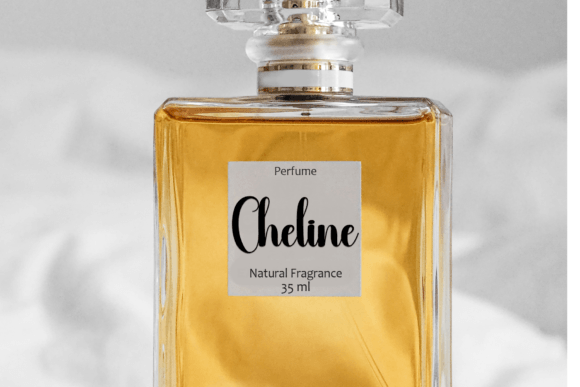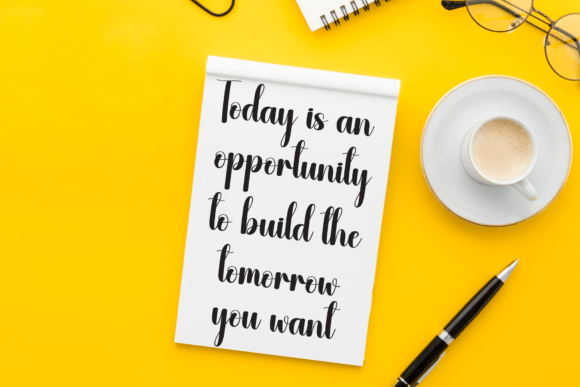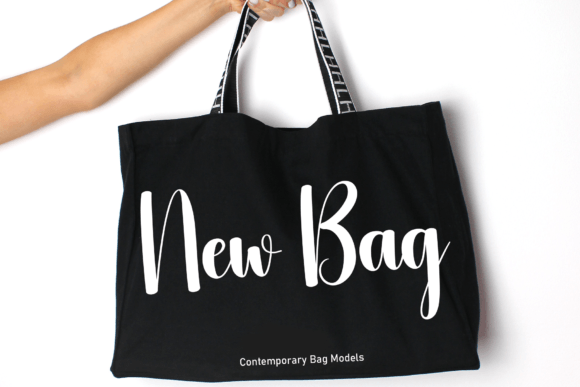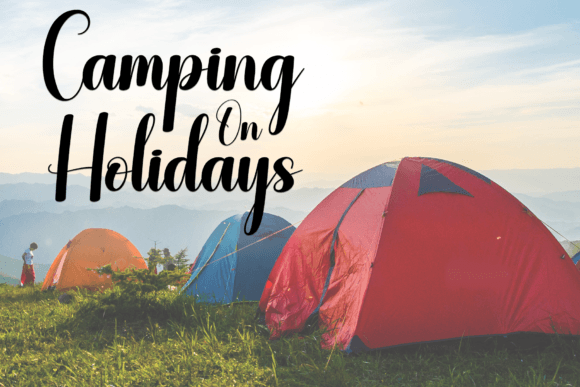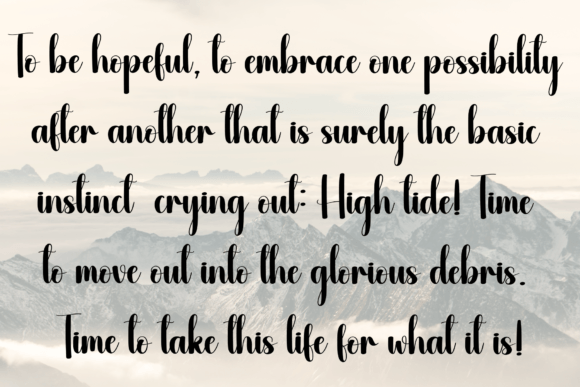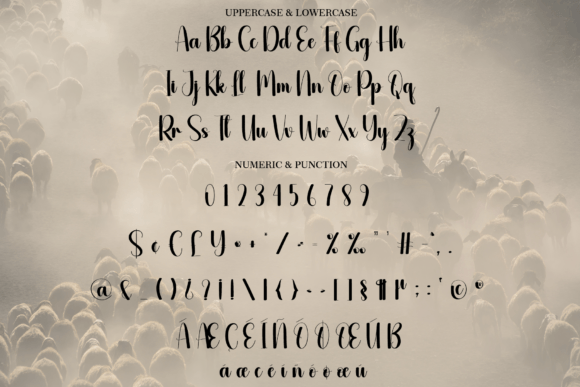
The Sweet Charm of Dusty Font: A Designer’s Delight
I still remember the time I was working on a wedding invitation project, and I just couldn’t find the right font to capture the warmth and elegance of the occasion. My client wanted something fresh, casual, and lovely – a font that would make their special day feel like a celebration. That’s when I stumbled upon Dusty Font, a sweet and friendly handwritten font that instantly won my heart. In this article, I’ll share my experience with Dusty Font, its features, and how to make the most of it in your designs.
An Honest Review of Dusty Font
What I Love About Dusty Font
- ✨ Sweet and Friendly Vibe: Dusty Font exudes a warm, inviting feel that’s perfect for wedding invitations, cards, and other designs that require a personal touch.
- ✅ Fresh and Casual: This font is ideal for creating a relaxed, effortless look that’s perfect for modern designs.
- 💕 Highly Readable: Dusty Font is clear and easy to read, making it suitable for both digital and print designs.
While Dusty Font is an excellent choice for many designs, there are a few things to keep in mind:
- ⚠️ Limited Formality: Dusty Font is a casual font, so it might not be the best choice for very formal or corporate designs.
- 🤔 Glyph Limitations: While Dusty Font has a range of glyphs and alternates, it might not have every special character or symbol you need.
The Story Behind Dusty Font
Dusty Font was created with the intention of capturing the warmth and charm of handwritten text. The designer aimed to create a font that would feel like a handwritten letter or a personal note – a font that would make the reader feel special and appreciated. With its sweet and friendly vibe, Dusty Font has become a popular choice for designers and crafters looking for a lovely touch in their designs.
Q: What type of designs is Dusty Font best suited for?
A: Dusty Font is ideal for wedding invitations, cards, and other designs that require a personal, casual touch.